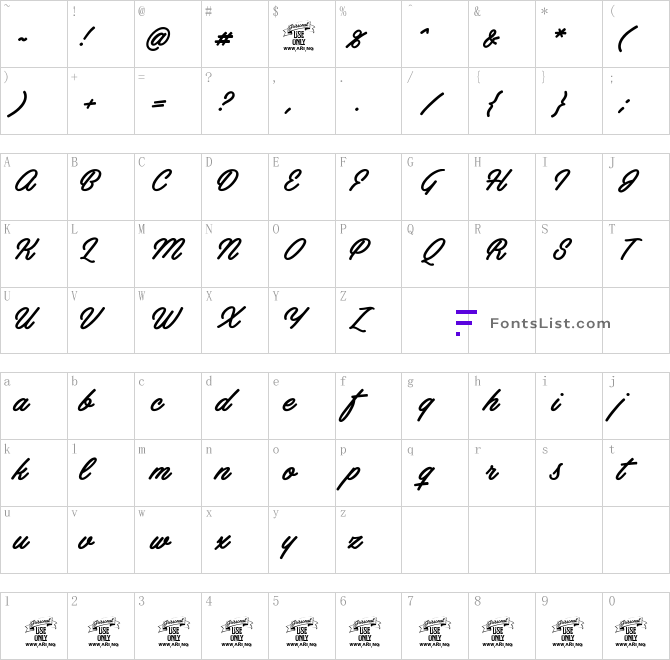
- Font Name:Artely Inks PERSONAL USE
Artely-Inks-PERSONAL-USE.ttf is a very beautiful artistic font, Artely-Inks-PERSONAL-USE.ttf is widely used in the design and printing of various books and pictures,Artely-Inks-PERSONAL-USE.ttf has a strong visual impact,Artely-Inks-PERSONAL-USE.ttf is a commonly used font in newspapers, magazines and books, and is used in posters, e-commerce Poster design, store design, logo design, font design and other fields.Artely-Inks-PERSONAL-USE.